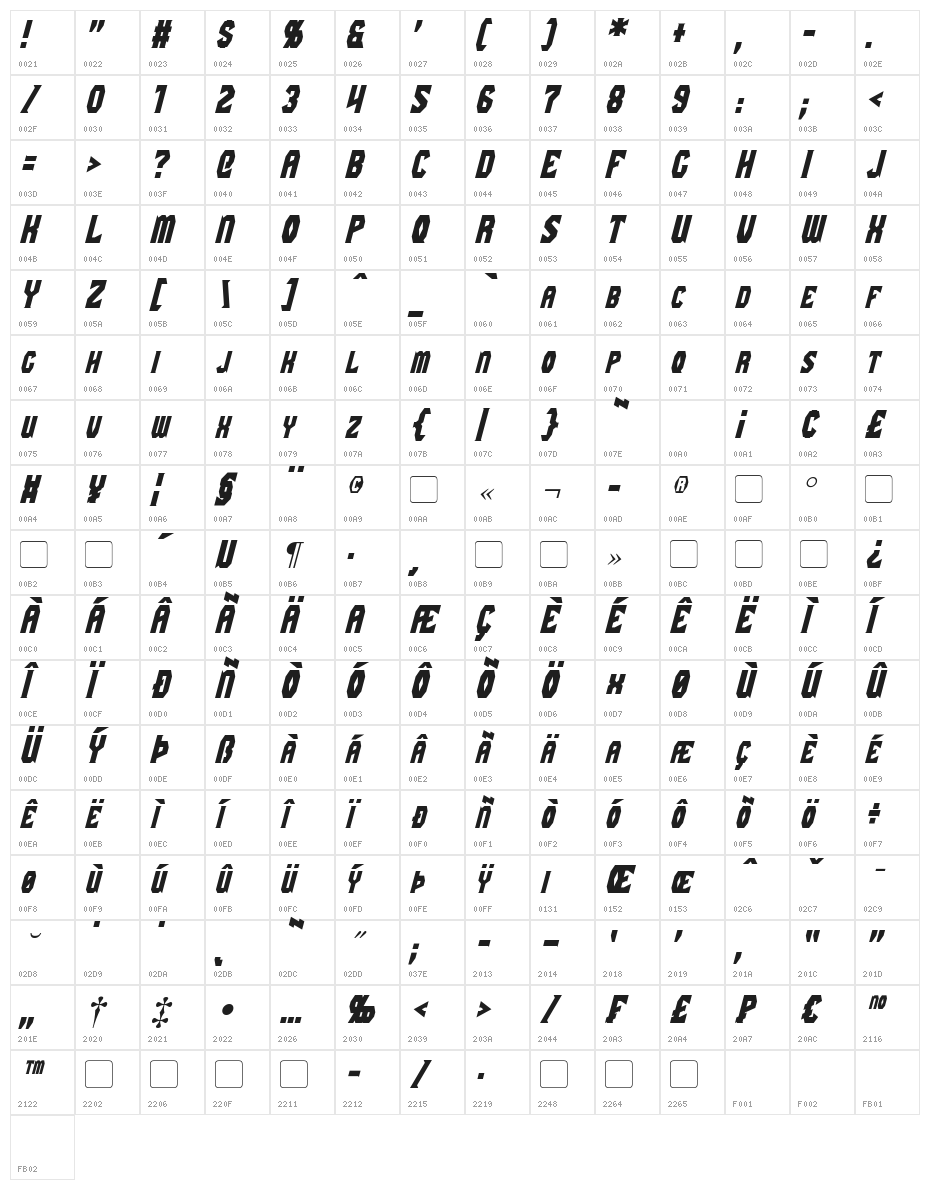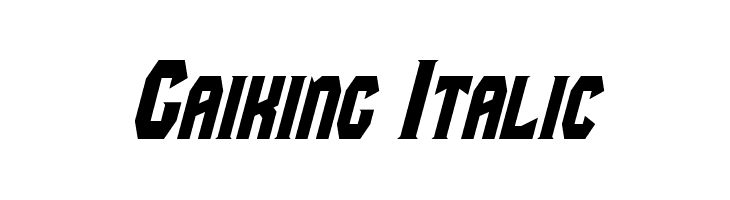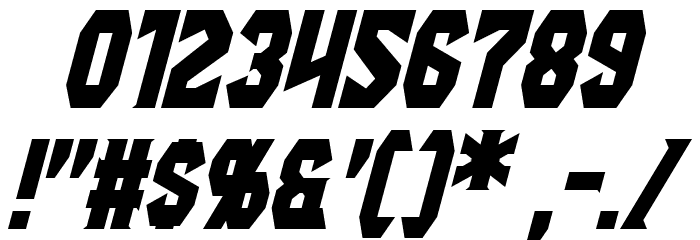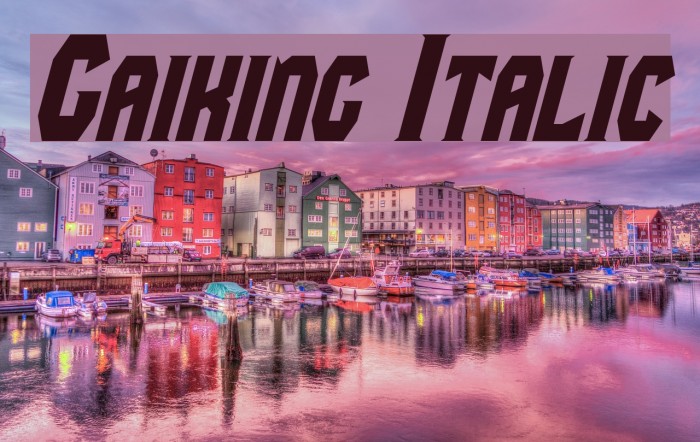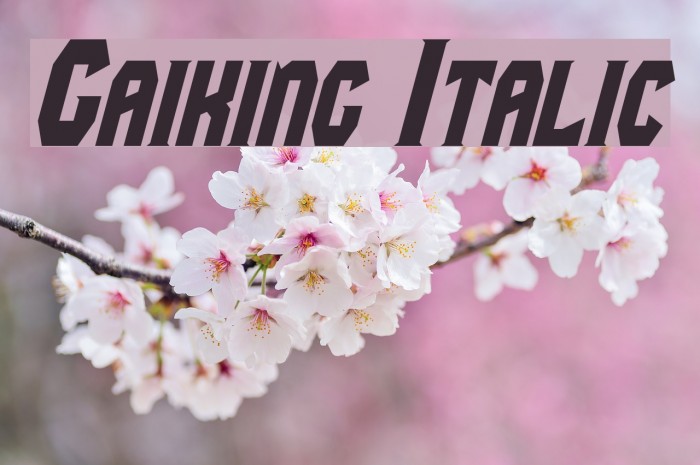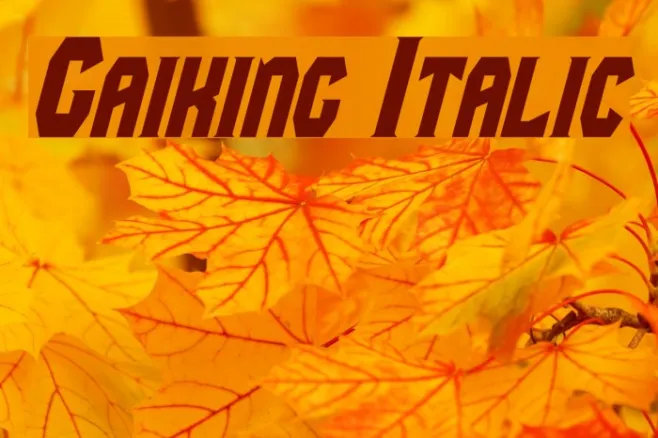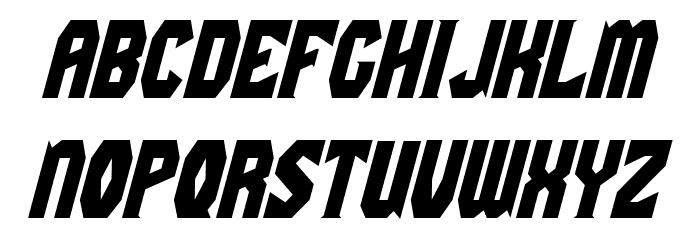
Gaiking Italic Font
Gaiking Italic Description
This font features a bold and dynamic style with a distinct italic slant, giving it a sense of movement and energy. The characters are angular and geometric, with sharp edges and a strong presence. The uppercase and lowercase letters maintain a consistent style, while the numerals and special characters complement the overall design. The bold weight and italic angle make it stand out, suitable for attention-grabbing headlines or impactful logos.
| Overall Style | Modern, Energetic |
| Proposed Projects | Ideal for sports branding, action-themed posters, video game titles, and dynamic logo designs. |